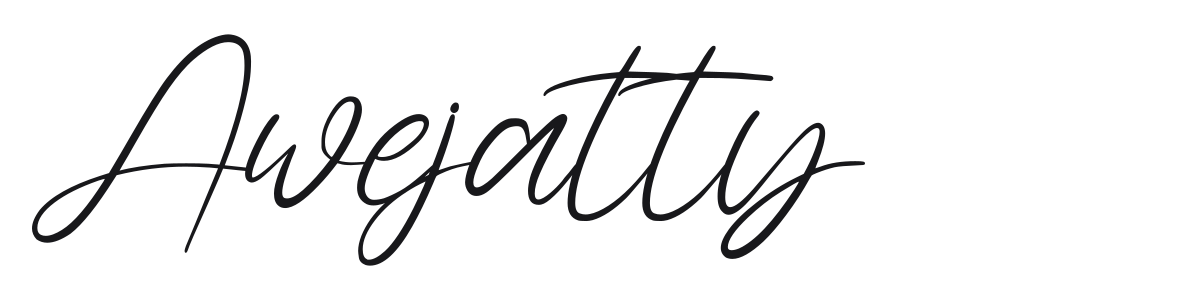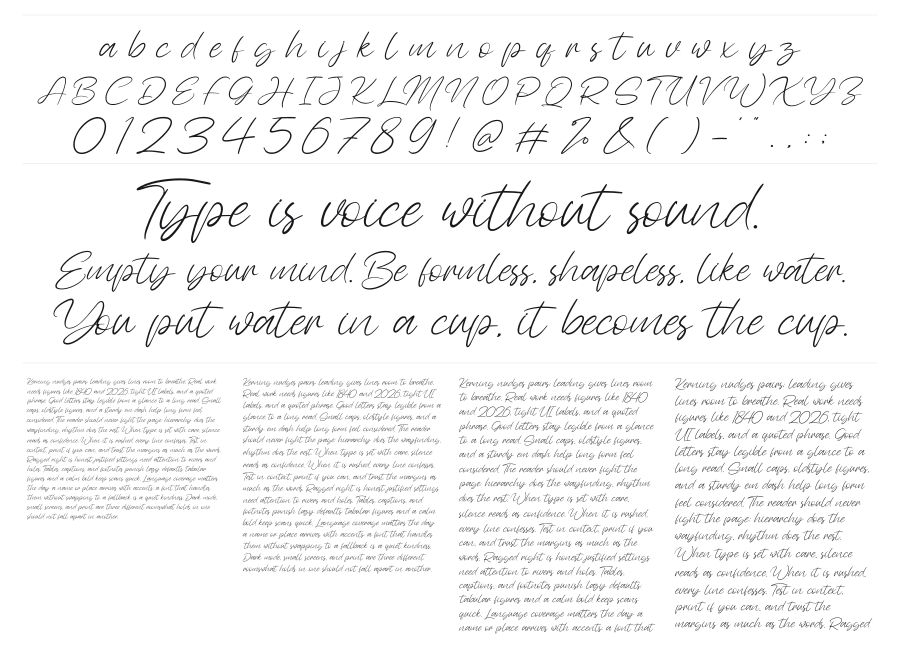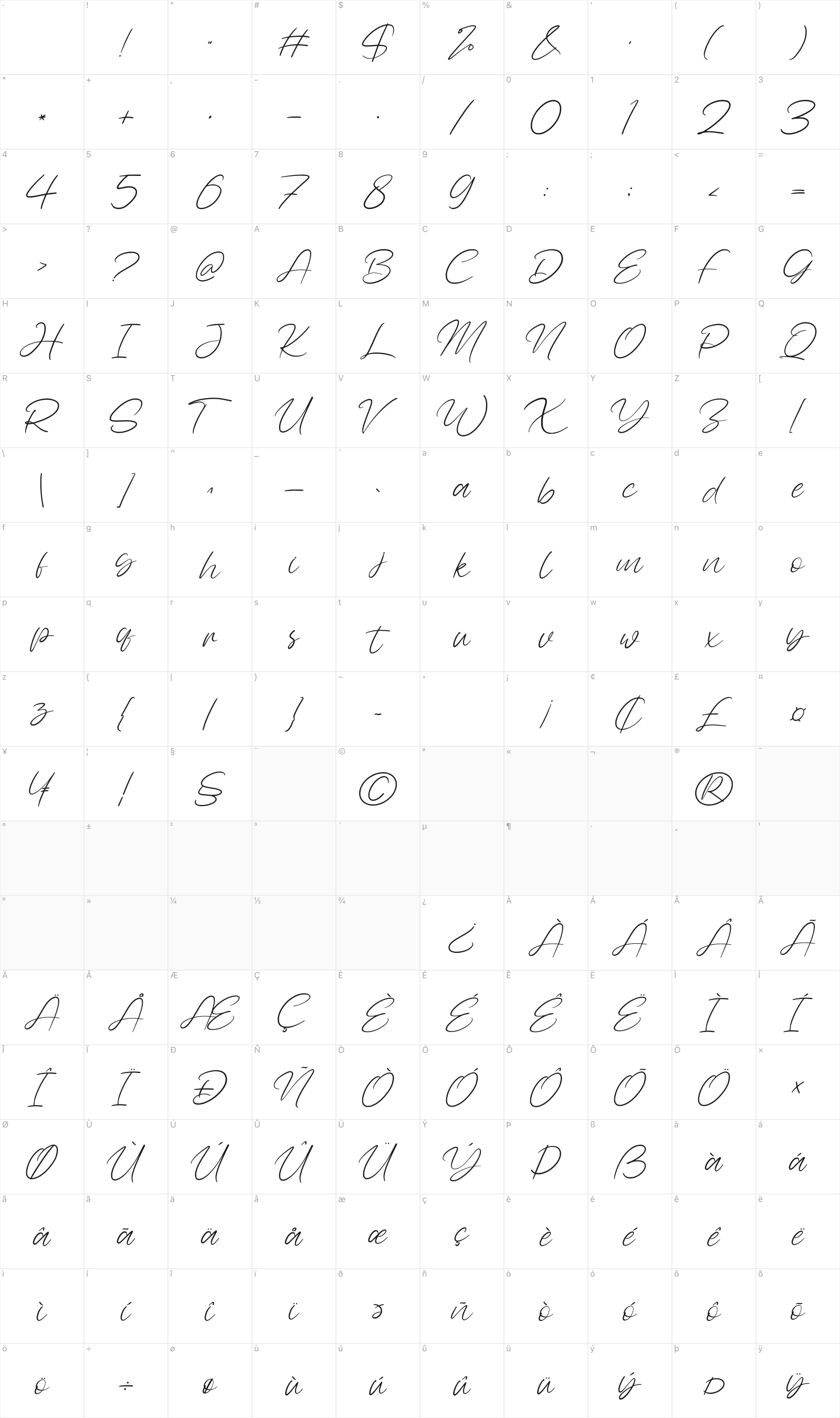
Awejatty
Awejatty is a flowing casual script with thin, ribbon-like strokes and generous connecting swashes that give it a relaxed yet refined character. The long ascenders and descenders create an airy, open rhythm that feels both handcrafted and polished. It works well for branding, invitations, product packaging, and any context that calls for a personal, contemporary touch.